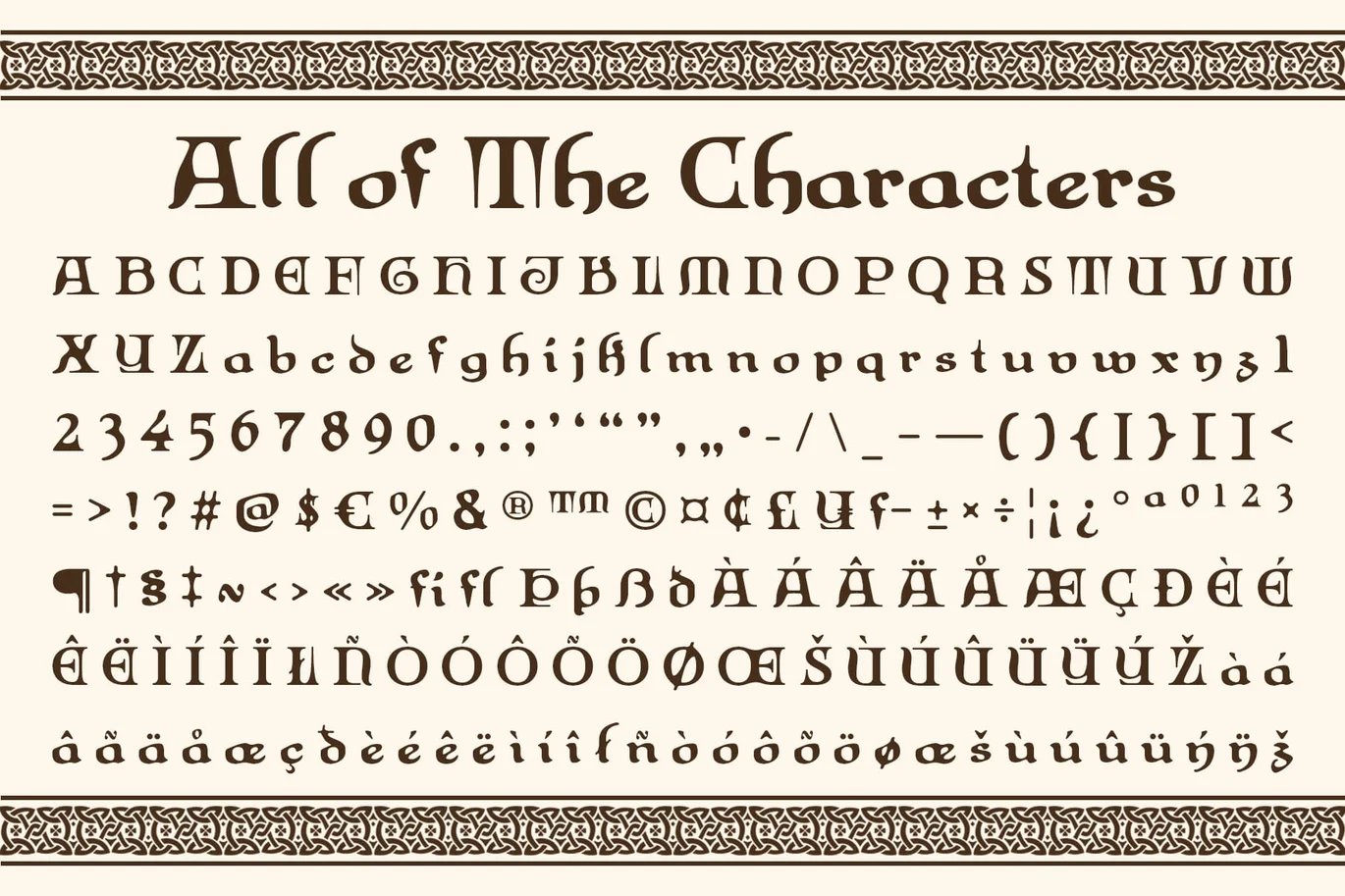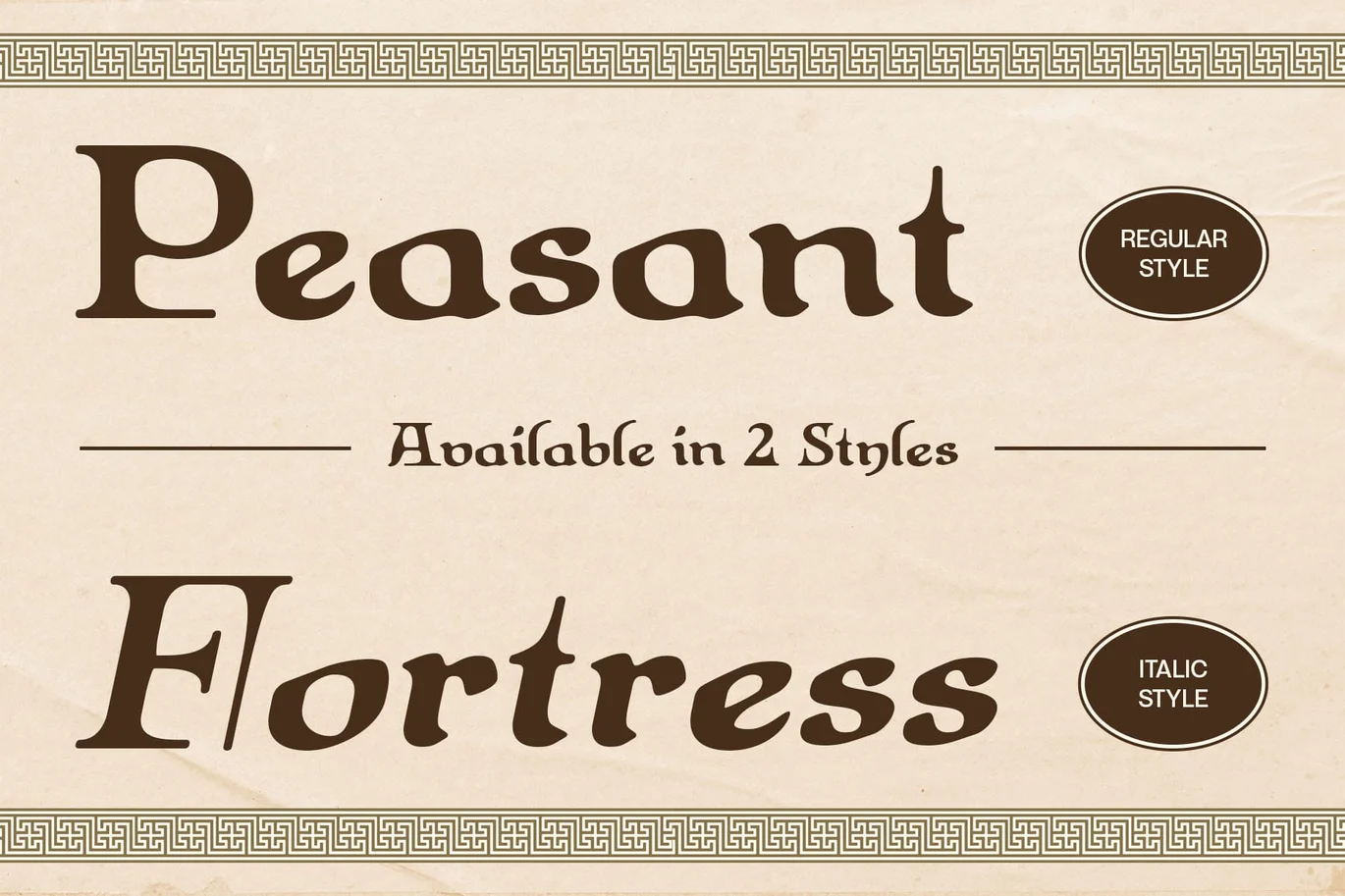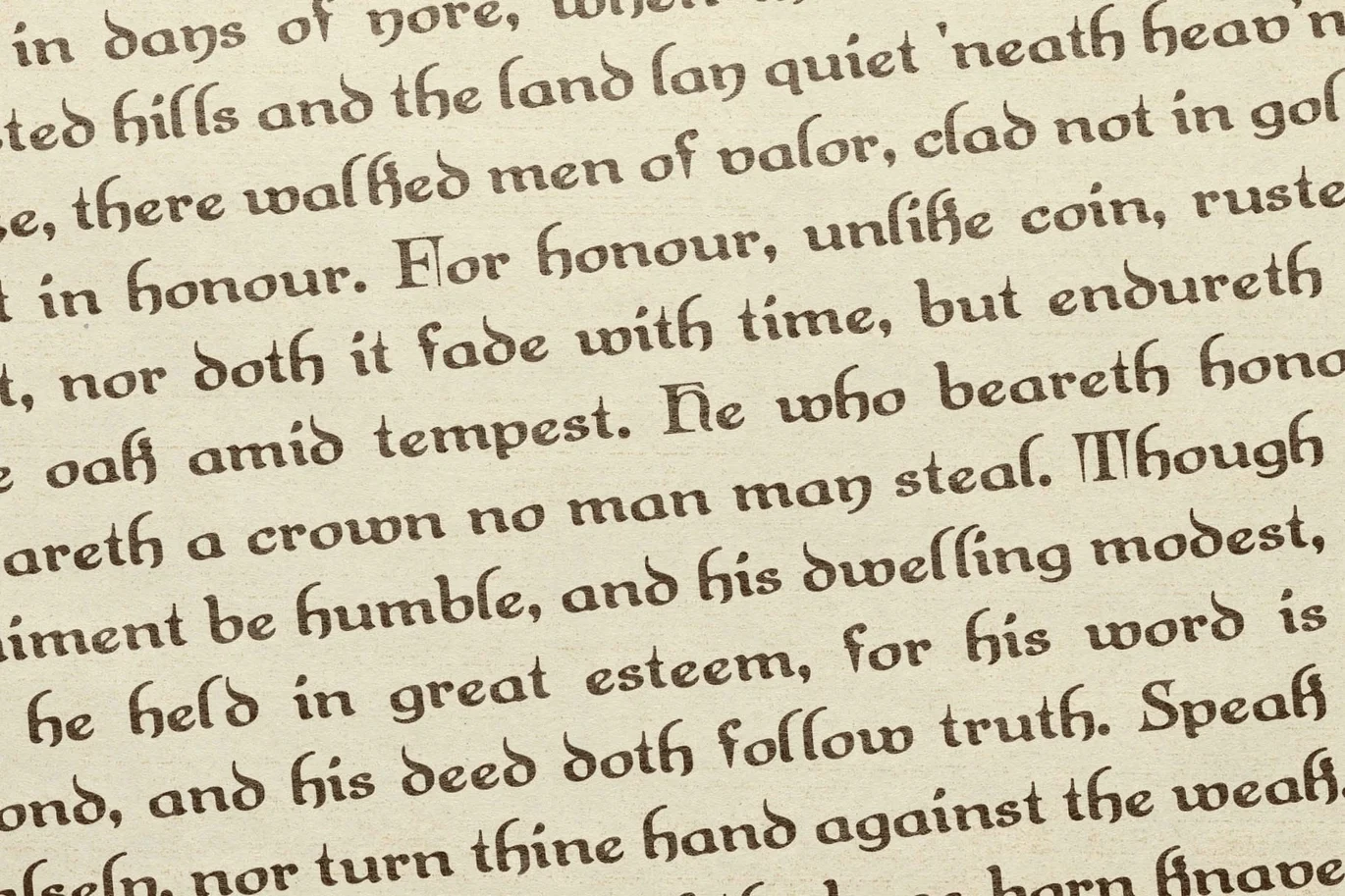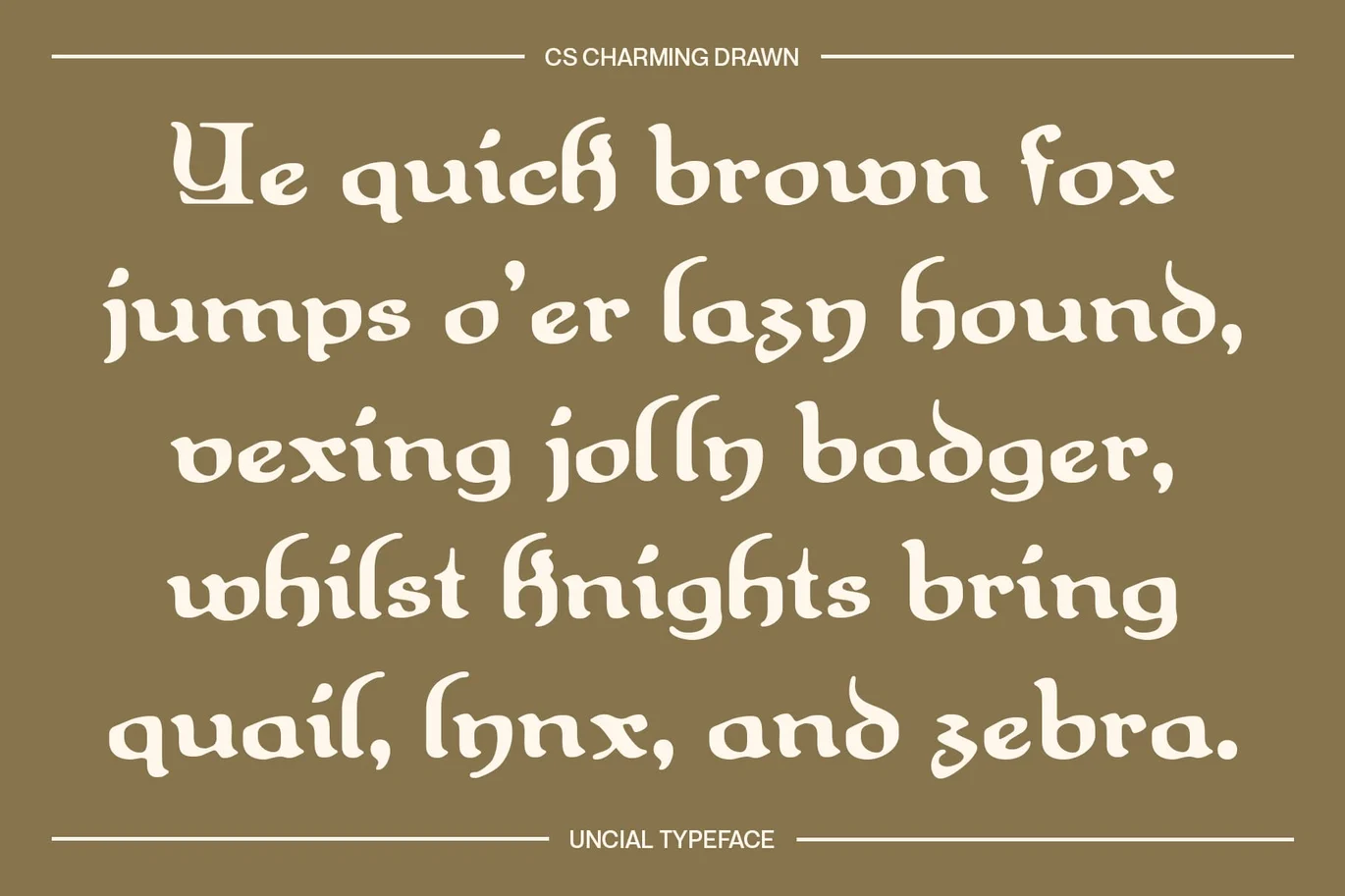
Charming Drawn Font
CS Charming Drawn – Organic Uncial Display Font
Timeless Elegance with an Artistic Touch
CS Charming Drawn is a unique display font that brings together the classic beauty of uncial letterforms with a hand-drawn texture for an organic, vintage-inspired look. Its soft, rounded shapes reflect the elegance of historical scripts, while the drawn effect adds a sense of personality and handcrafted charm.
Rooted in History, Made for Creativity
Inspired by ancient calligraphy and medieval manuscript styles, this mystical font evokes a feeling of tradition and storytelling. Yet, its expressive detailing and artistic execution make it highly suitable for modern creative projects that seek a touch of the old world. It’s perfect for use in fantasy titles, folklore designs, historical branding, or artisan product packaging.
Authentic, Expressive, and Full of Character
With its flowing curves and textured lines, this font captures an emotional and tactile feel—ideal for designs that aim to convey depth, narrative, and authenticity. Whether you’re working on a book cover, logo design, or vintage-inspired poster, this unique font helps your message stand out with distinctive character and warmth.
A Font for Storytellers and Creators
If you’re crafting a project that blends myth, history, or artisan culture, this artistic font offers the perfect visual voice. It’s a display font that doesn’t just deliver legibility—it delivers atmosphere, heritage, and a handmade soul.